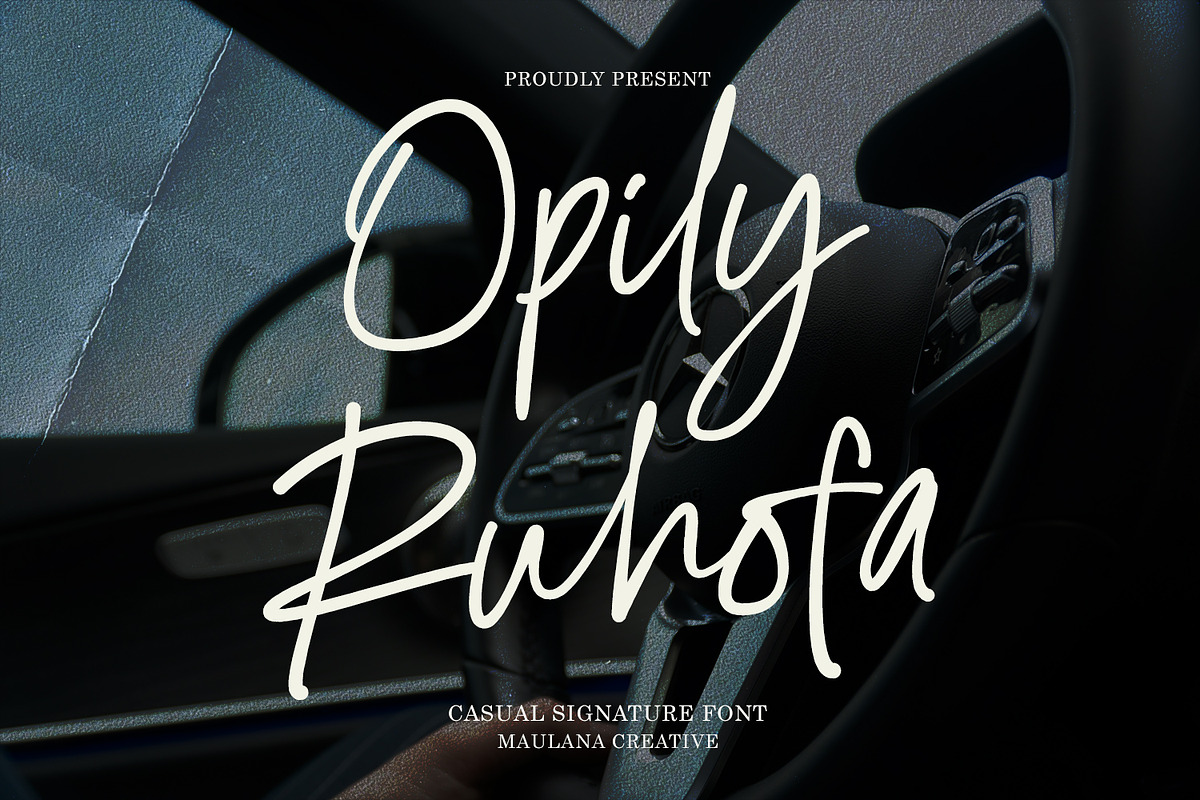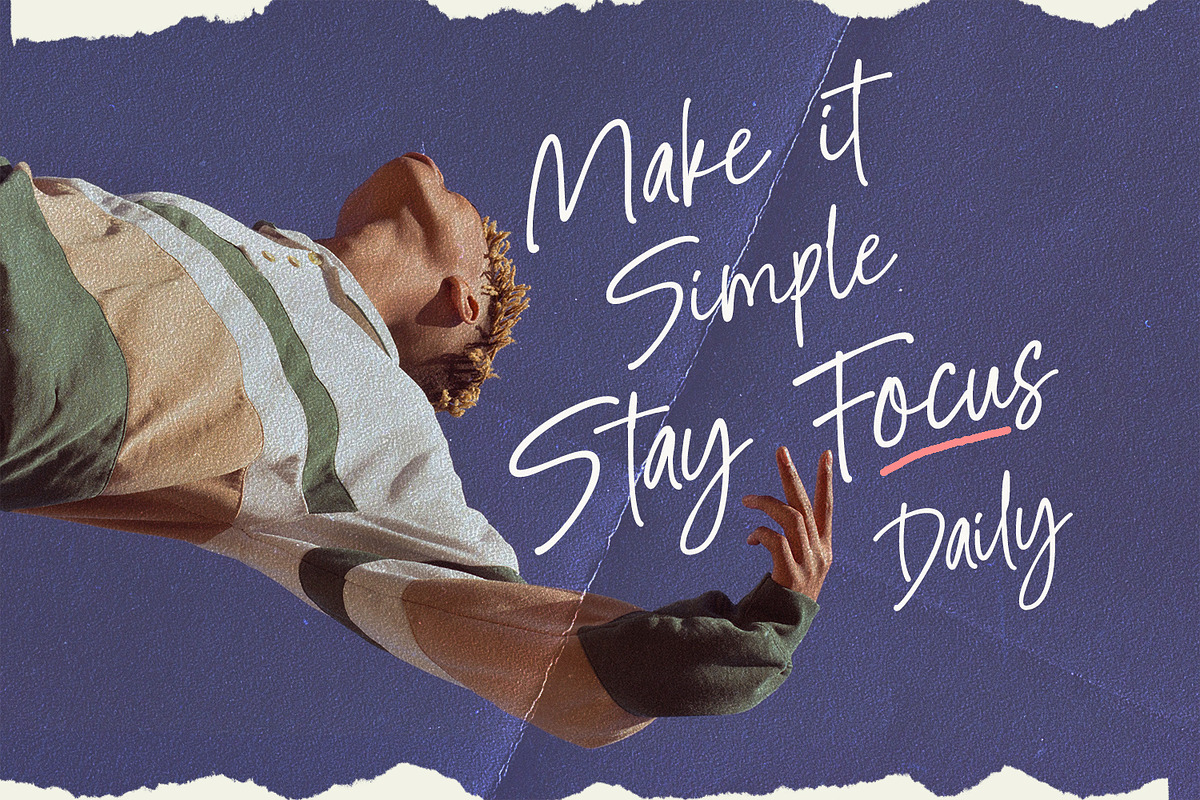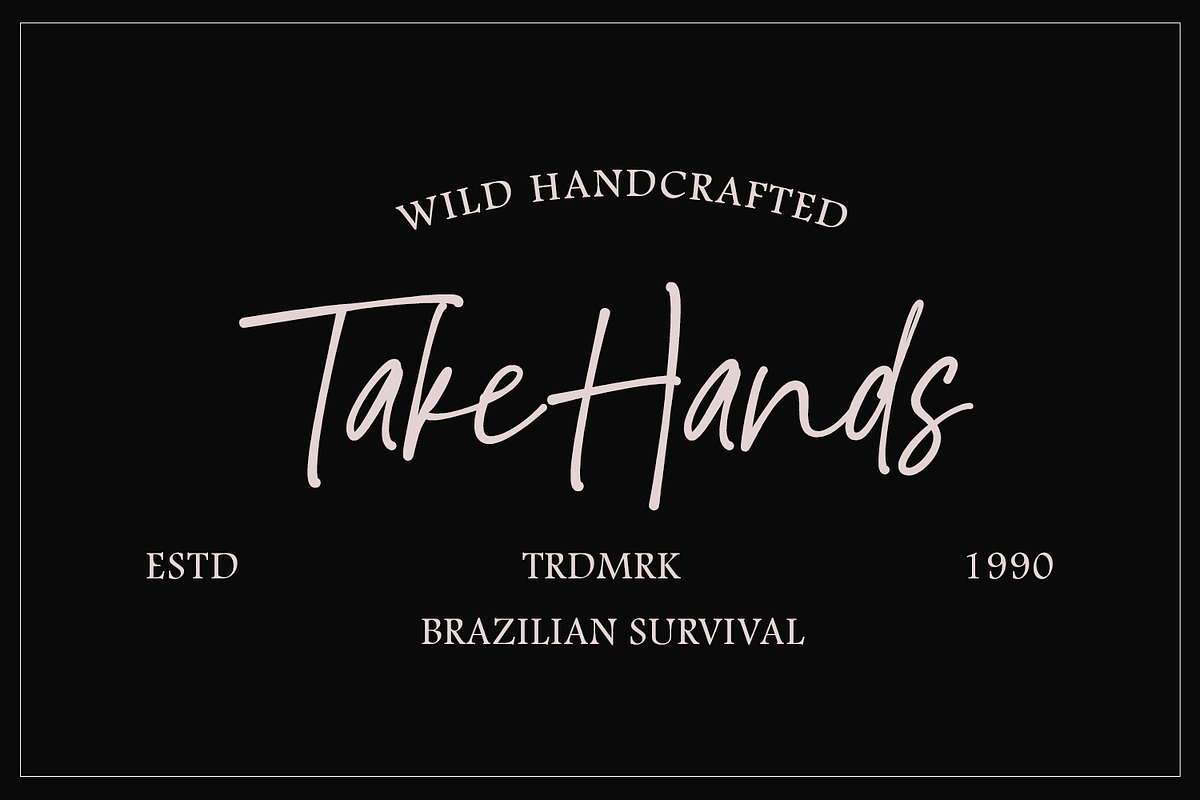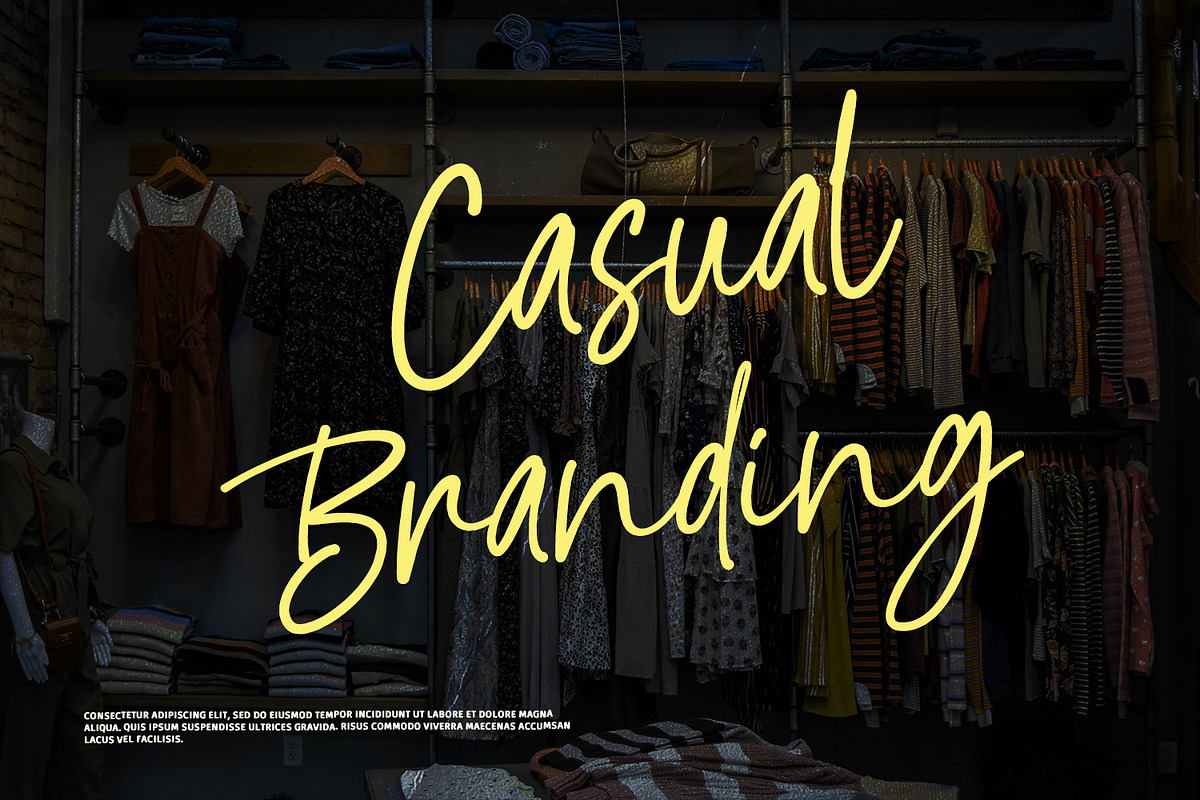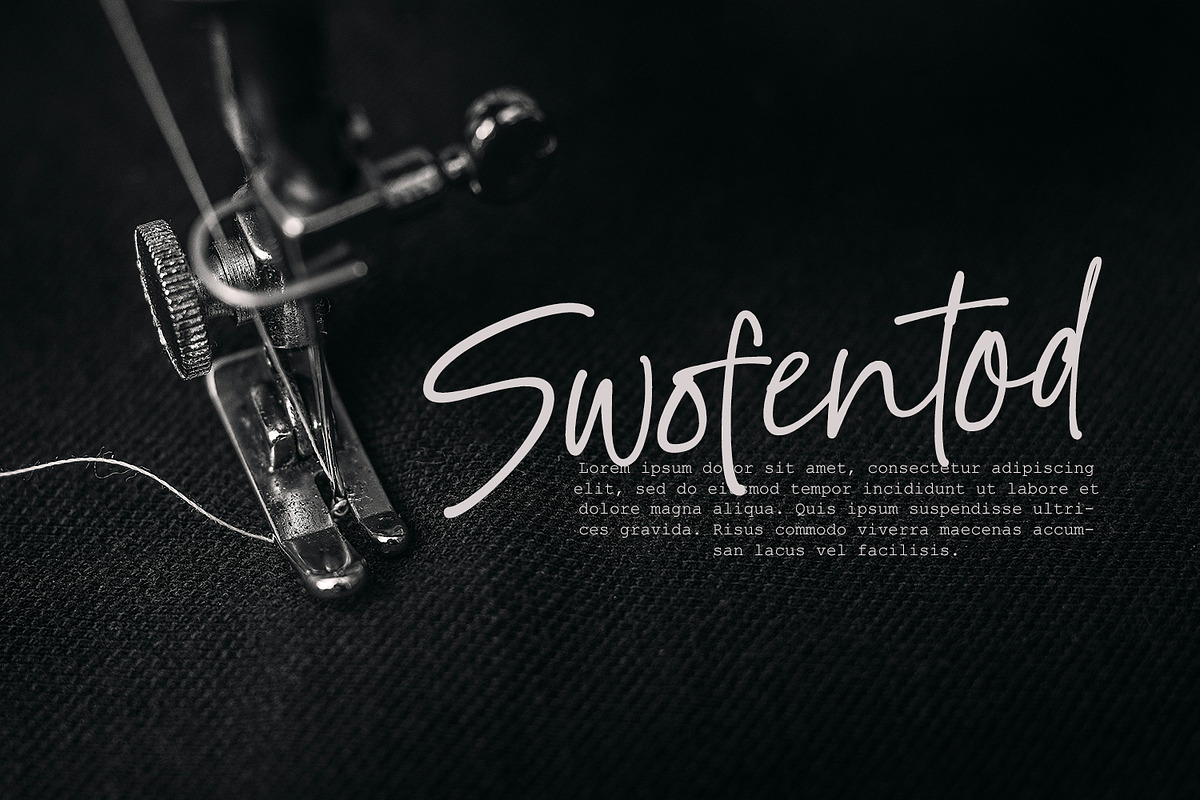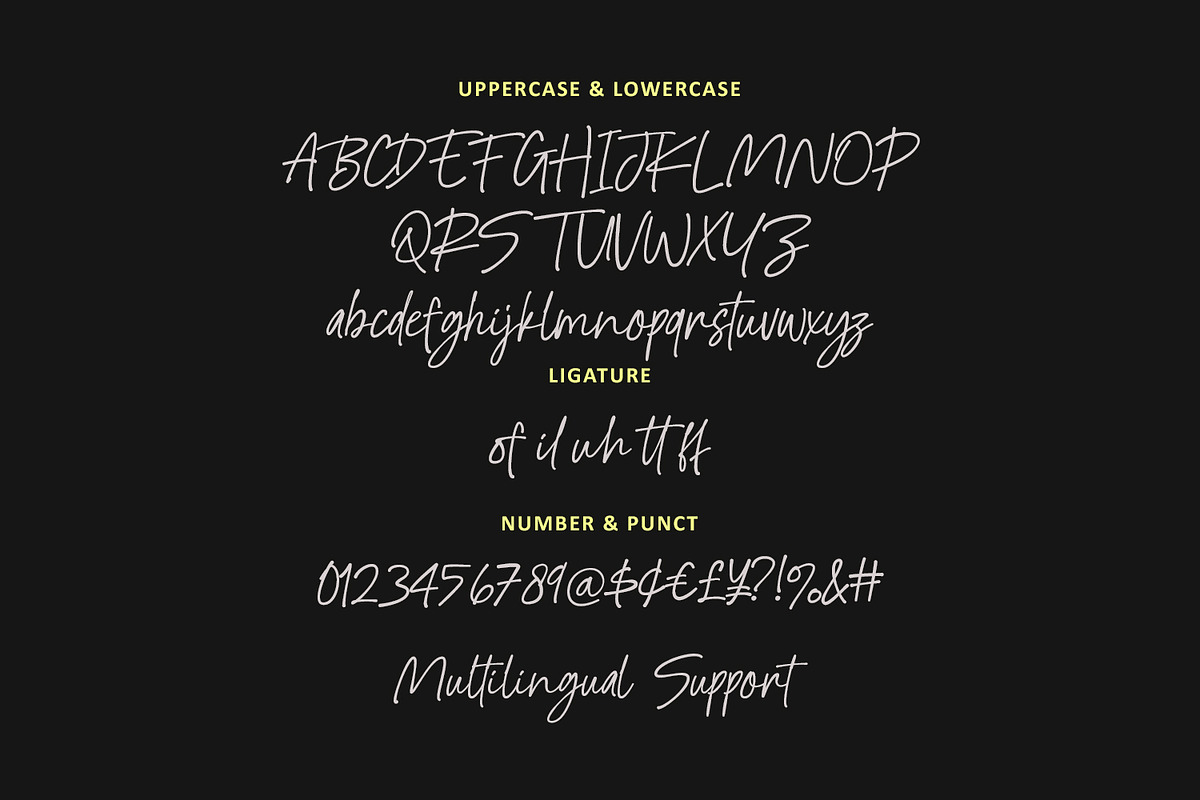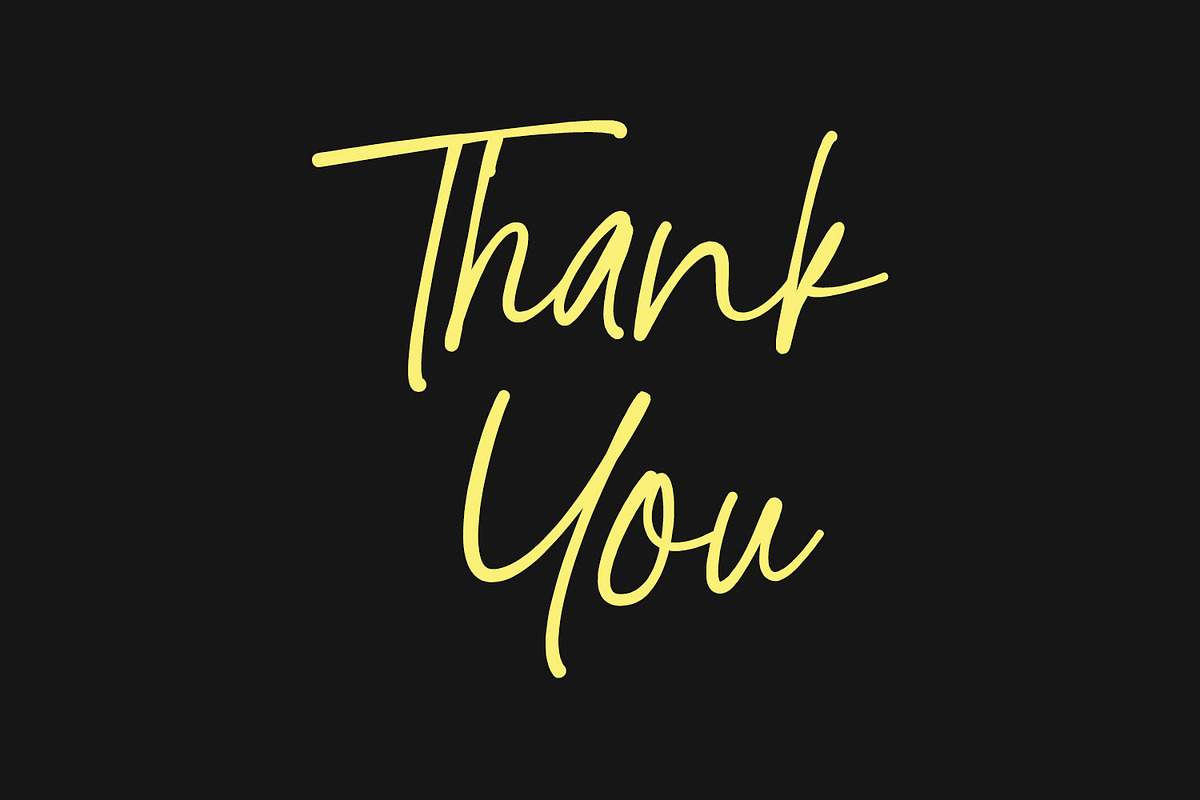
Opily Ruhofa Casual Signature Font
Opily Ruhofa is a wild, handcrafted signature font that perfectly balances elegance with a raw, casual energy. Designed by Maulana Creative, this font features natural-flowing strokes and stylish ligatures that mimic authentic handwriting. It is the ideal choice for branding projects, luxury fashion labels, lifestyle photography overlays, and modern logos looking for a personal, human touch. Whether you're designing a high-end "Casual Branding" campaign or a "Wild Handcrafted" editorial piece, Opily Ruhofa brings a sophisticated yet effortless aesthetic to your work.
- Full character set (Uppercase & Lowercase)
- Numbers, Punctuation, and Symbols
- Ligatures for a natural handwriting flow